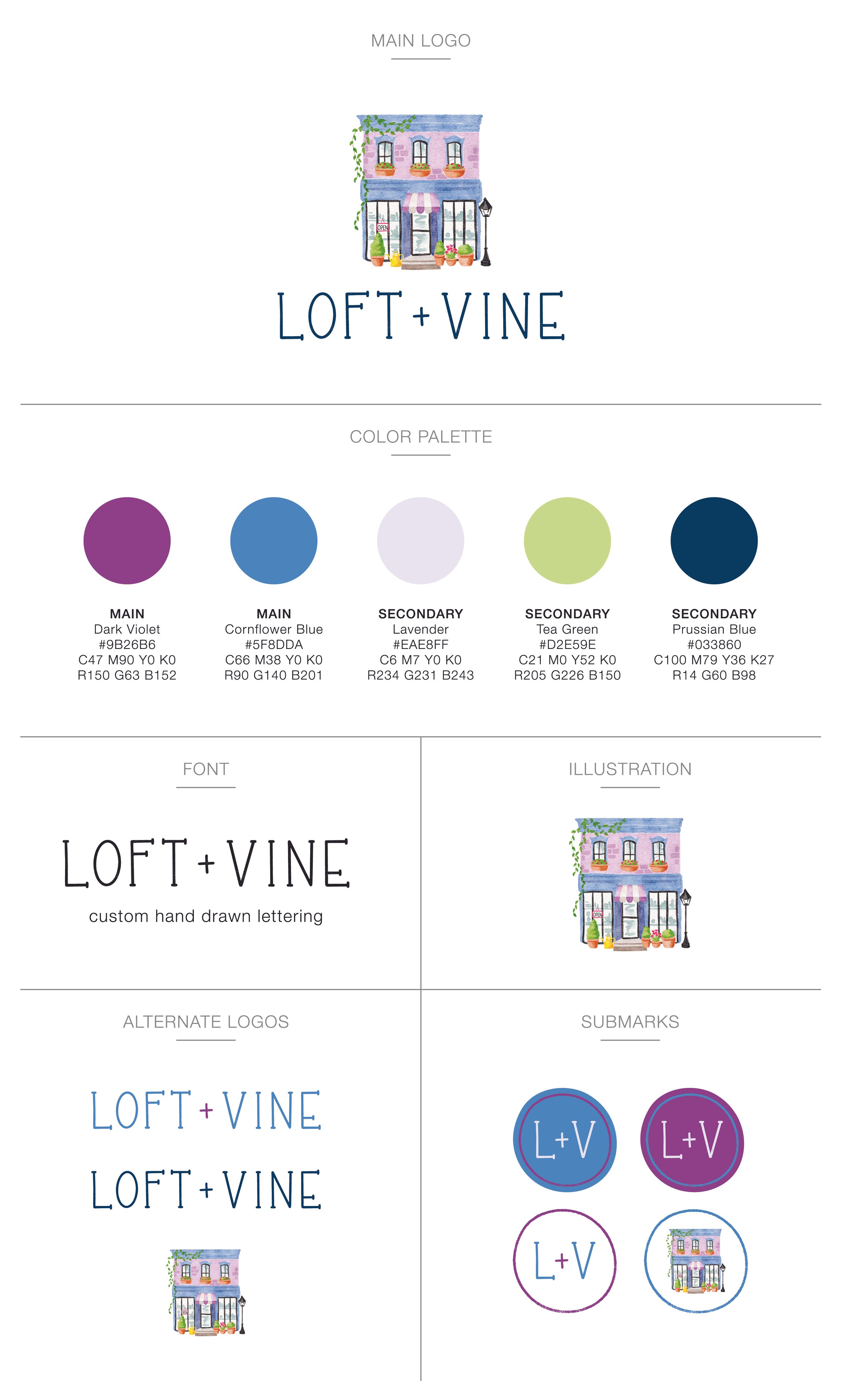
LOFT & VINE - BOSTON, MA
Working with Loft & Vine has been one of those full-circle creative collaborations. What started as a wholesale relationship — with them carrying my greeting cards in their beautiful North End shop — naturally evolved into a design partnership where I’ve been able to help with everything from in-store signage to a full logo refresh. The updated logo features a charming storefront illustration by the incredibly talented Alessandra Gavin, and I added custom hand drawn lettering to bring the whole look together. It’s the perfect blend of cozy neighborhood charm and playful personality.